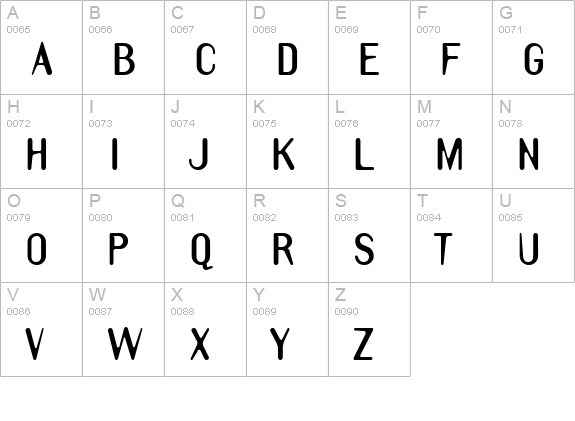
TemplateGothicBold Bold Font Details
TemplateGothicBold Bold is a strong, high-contrast variant in the TemplateGothicBold typeface family \xE2\x80\x94 well suited to headlines, attention-grabbing titles, and strong calls-to-action.
TemplateGothicBold Bold font is a stunning display font that adds a touch of elegance and sophistication to any design project. With its bold and strong letterforms, this font commands attention and makes a bold statement. It is perfect for headlines, titles, logos, and branding materials that require a powerful and impactful look. What sets TemplateGothicBold Bold font apart is not just its striking design, but also the fact that it is freely available to download. You can easily access this font at FontsMarket.com, where you can find a wide range of high-quality fonts for all your creative needs. Whether you are a graphic designer looking to enhance your designs or a business owner in search of a font that will make your brand stand out, TemplateGothicBold Bold font is an excellent choice. Its versatility and timeless appeal make it suitable for a variety of projects, from print to digital. The clean and crisp lines of TemplateGothicBold Bold font ensure legibility even at smaller sizes, making it ideal for body text as well. Its bold weight gives it a strong presence, making it perfect for headlines and attention-grabbing elements in your design. With TemplateGothicBold Bold font, you can effortlessly create eye-catching designs that leave a lasting impression. Its unique style and attention to detail make it a go-to choice for designers looking to add a touch of sophistication to their work. So why wait? Download TemplateGothicBold Bold font for free at FontsMarket.com and unleash your creativity today. With this font in your toolkit, you'll have the power to create visually stunning designs that captivate your audience.